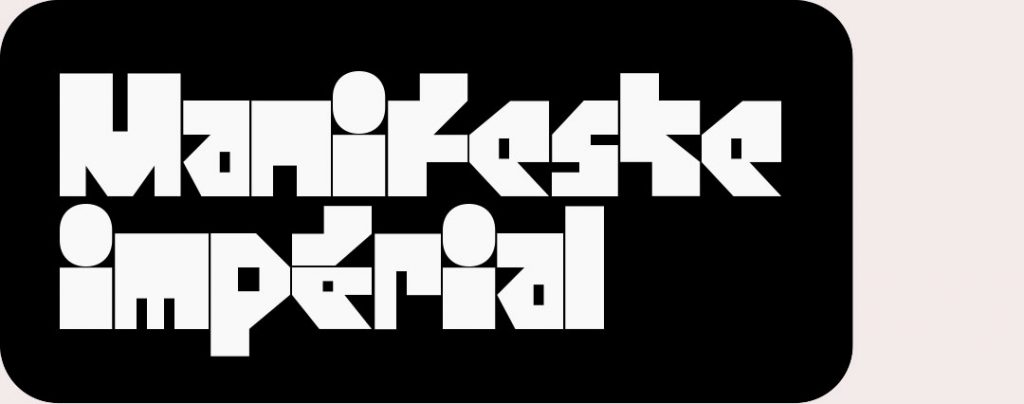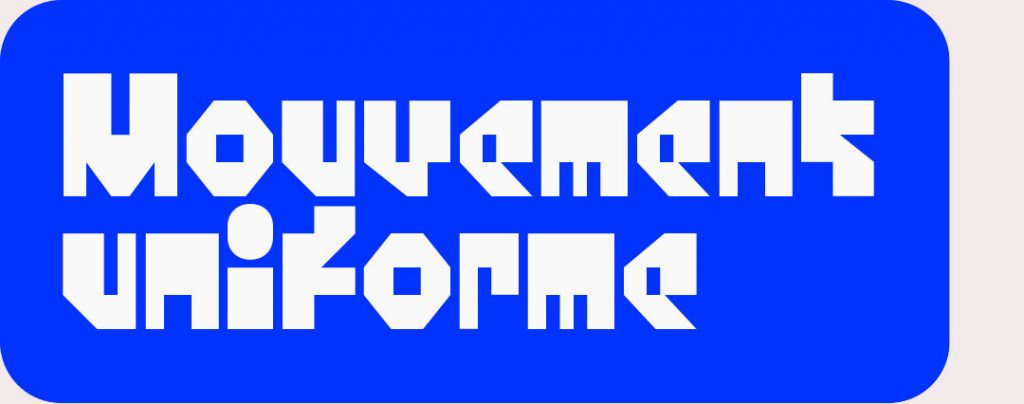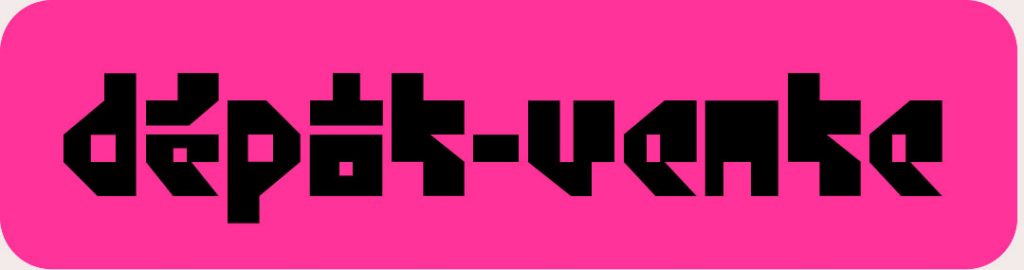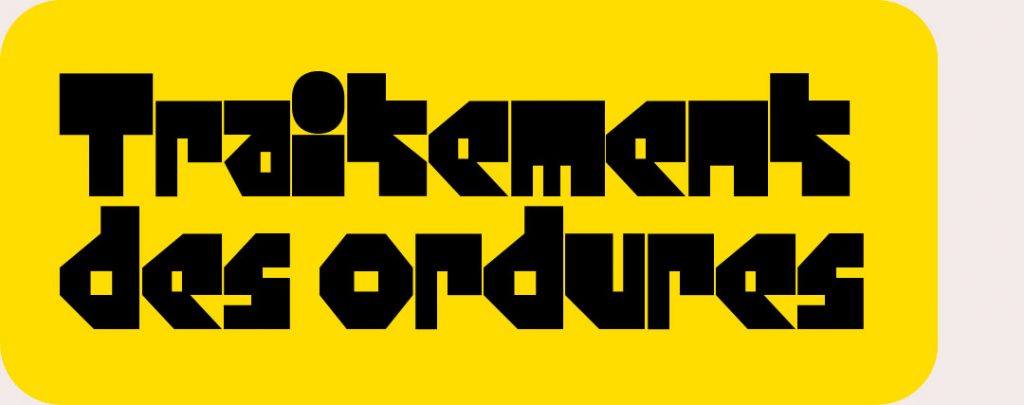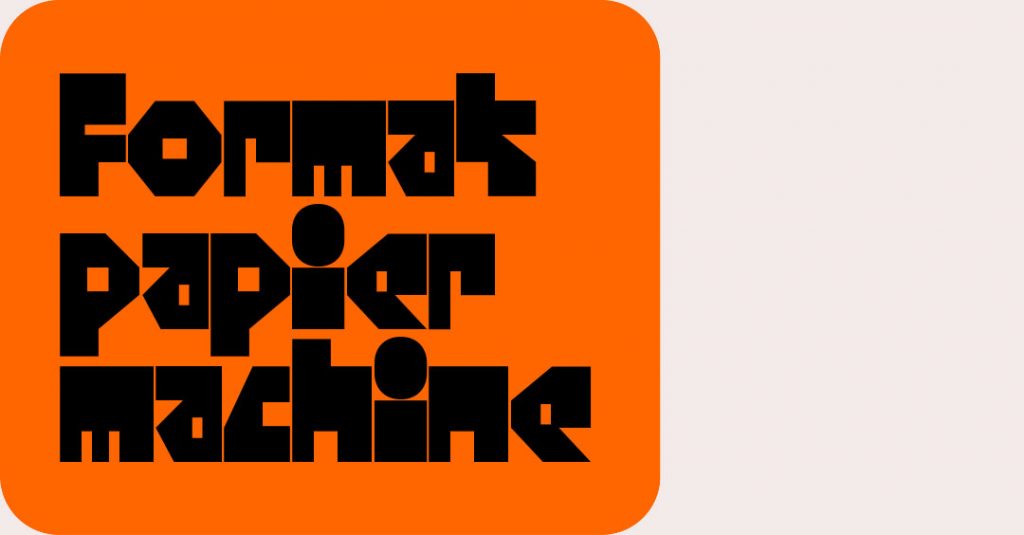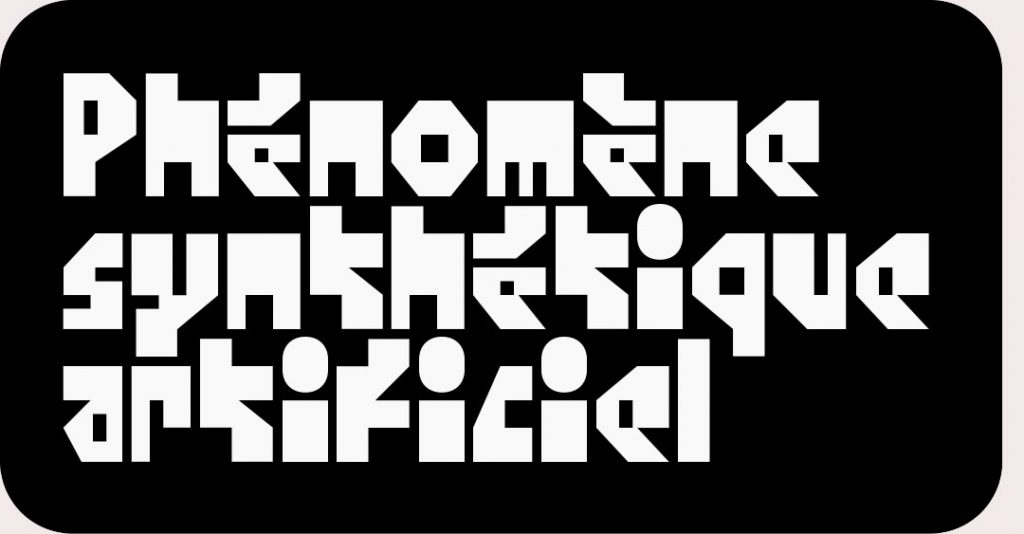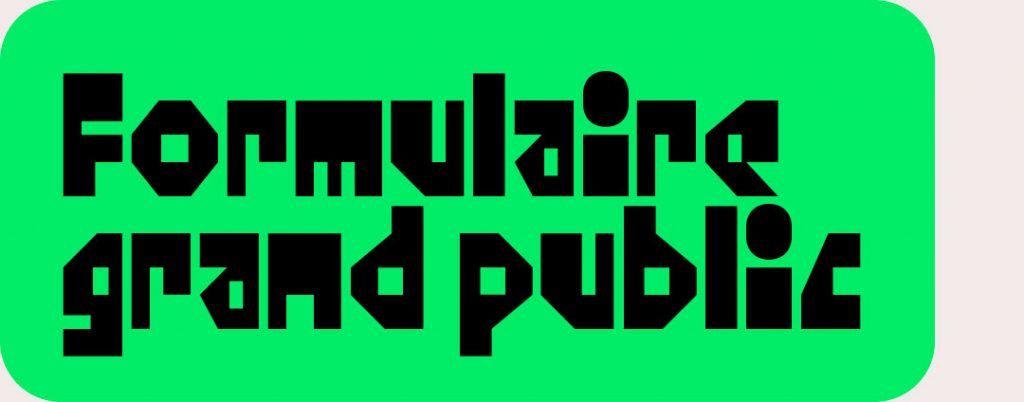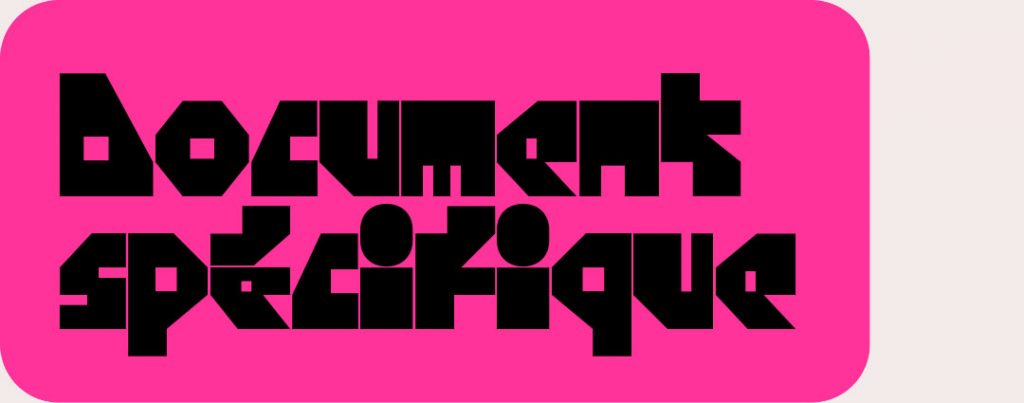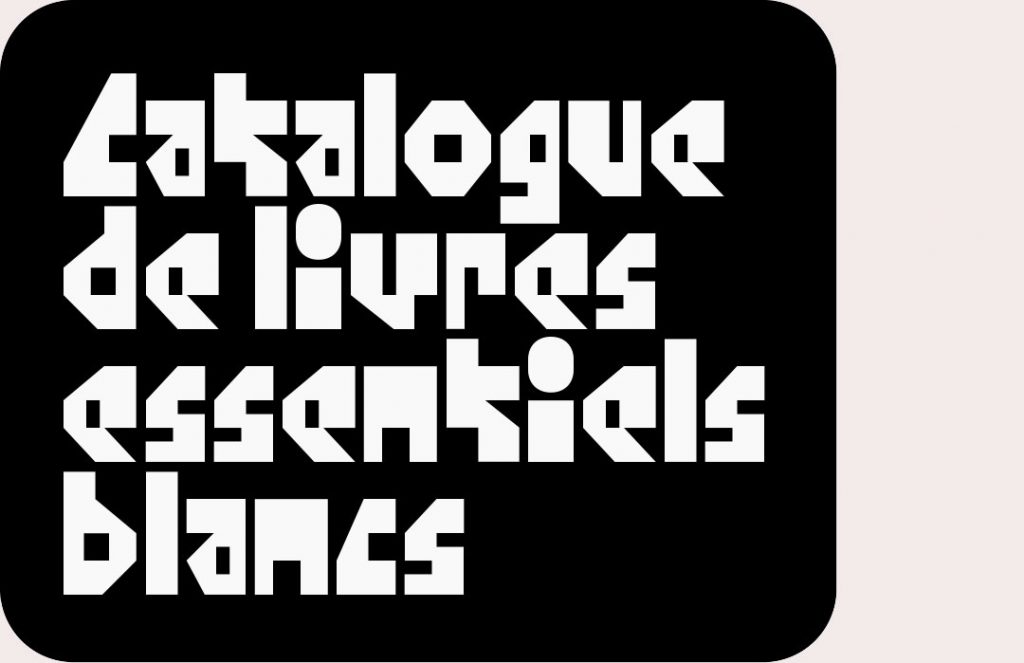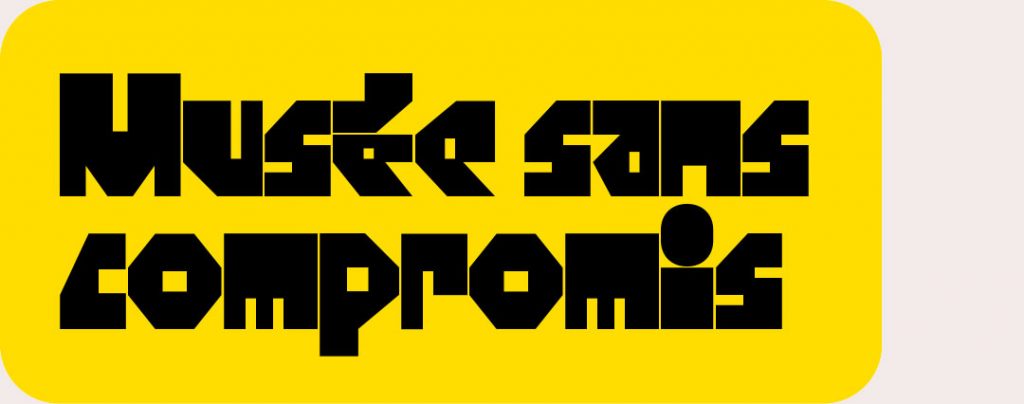
Name: Gikit
Designer: Benoît Bodhuin
Foundry: BB Bureau
Release Date: December 2020
Back Story: Benoît Bodhuin, founder of BB Bureau, started working on what eventually became Gikit in August last year, when he was briefed by a client to create “very raw and quirky glyphs” for a typeface. That aspect of the client project fell through in the end, and so these glyphs “took their independence,” as Bodhuin puts it. Creating Gikit was in part born of the designer’s desire to find a productive conclusion to the unfinished commission.
His intention was simply to draw “something raw, massive, with very little curve (just the dots and a few punctuation marks),” he says, “just to see where this path leads.” Although the process was a “stroll” rather than a concrete design journey, Bodhuin says that the main challenge was to balance “brutality and harmony” in order to create a sense of coherence in the set of characters. Like many of his previous font designs, Gikit is structured according to a strict grid. However, unlike any of Bodhuin’s previous work, he describes this type as being like a “sculpture,” with each character “a block from which I remove pieces to arrive at the letter.”
Why’s it called Gikit? When Bodhuin was testing out his font, he played around by copying and pasting various letterforms, placing together letters that wouldn’t normally be seen side-by-side. At one point, the word Gikit suddenly appeared, and it stuck.
What are its distinguishing characteristics? When used in Roman languages other than English—and in particular, in Bodhuin’s native France—it’s Gikit’s accents that really stand out. In lowercase letters, the accents crush the forms. “[The letters] have the same height as the accent itself so as not to exceed the height of the ascenders,” says Bodhuin. This intentionally disrupts the reading of the letters, especially since a few of the characters are pretty hard to identify outside of their usual contexts.
“More generally, what I like in type design is the relationship between the drawing of a letter and the rendering of the type,” says Bodhuin. “The feeling between the two is sometimes quite different. For example, in Gikit the letters are very raw, but the whole is quite playful.”
What should I use it for? This isn’t a font for anything too serious—or indeed anything that needs to be legible. While its striking forms certainly make you look, it may not work well with brands or billboards, in which messaging is key. But at larger sizes, it might be an interesting font for signage. Bodhuin suggests that Gikit’s playful aspects give it “a very funny side,” and reckons it might work for comics or posters. “My typefaces are never used for packaging,” says Bodhuin. “I can guess why,”
What other typefaces do you like to pair it with? Thanks to its highly unusual, Net Art-leaning, and futuristic-yet-somehow-vaguely-retro feel, Gikit works well with classic fonts—especially those that have the twist of a contemporary redesign. Bodhuin suggests fonts along the lines of Happy Times by Matthias Hübner, Nitti by Bold Monday, Roobert de Martin Vácha, Victor by Dinamo, and Topol by Filip Matějíček and Jan Horčík.